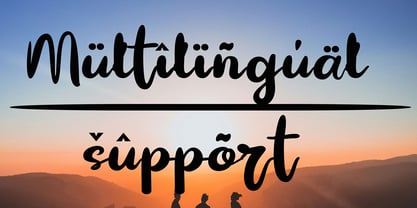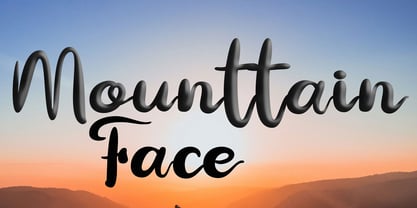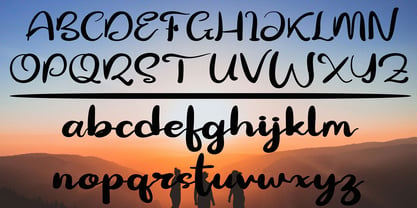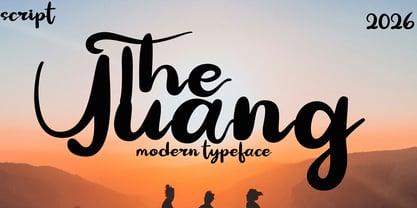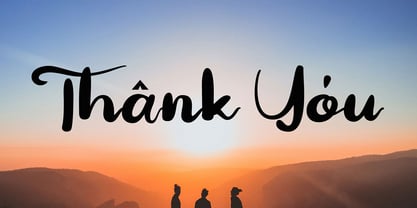
The Yuang
by Canden Meutuah
The The Yuang Font Family was designed by Canden Meutuah and published by Canden Meutuah. The Yuang contains 1 styles. More about this family
The Yuang is a stunning and captivating font that features a soft, unique touch. Its distinctive strokes lend it a special character, making it both meaningful and versatile for a variety of applications. With an extensive range of characters, it is perfect for design projects, crafts, and other creative endeavors. This adaptable font is compatible with various platforms, including Windows and open-source systems, making it an excellent choice for a wide array of products. The natural style of Yuang enhances your designs, ensuring they appeal to diverse audiences across multiple artistic and creative fields.